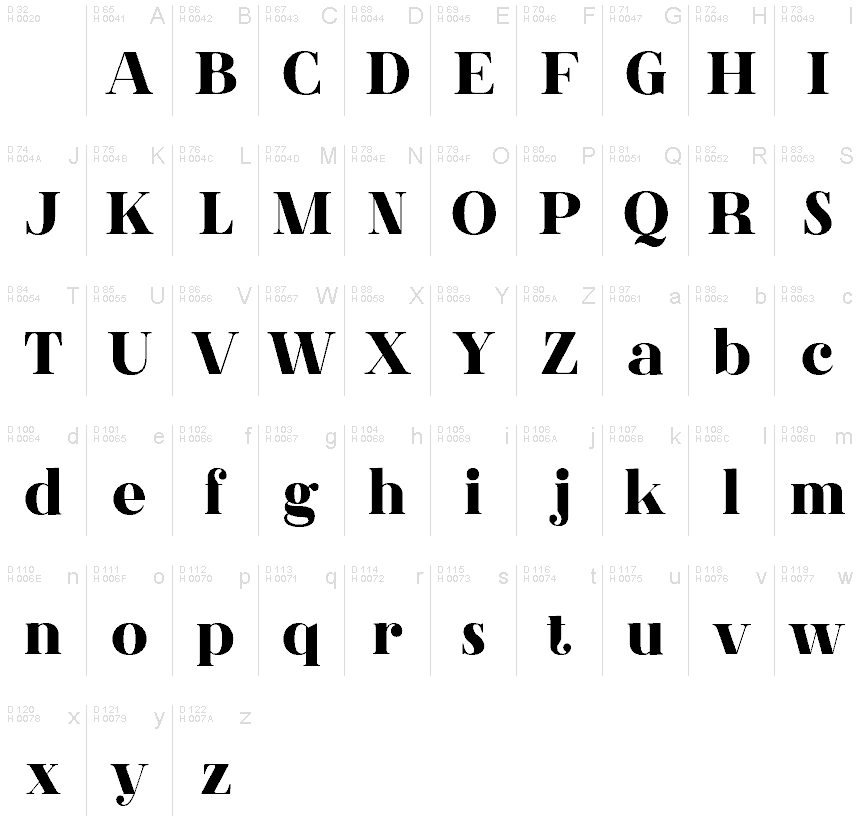
CS Agnes Regular
CS Agnes font by Craft Supply Co. is bold, classic, and authoritative. The sophisticated serif typography communicates elegance with a hint of high contrast present among its characters’ composition. Every letter appears as a fluid work of art presenting the delicacies and subtleties of the font when combined into one whole formal design.
Create eye-catchy headlines, posters, typography works, stationery designs, magazine covers, music album covers, logo designs, branding purposes, title designs for books or movies both printed or digital pages. CS Agnes is free for all kinds of uses so go ahead and create!